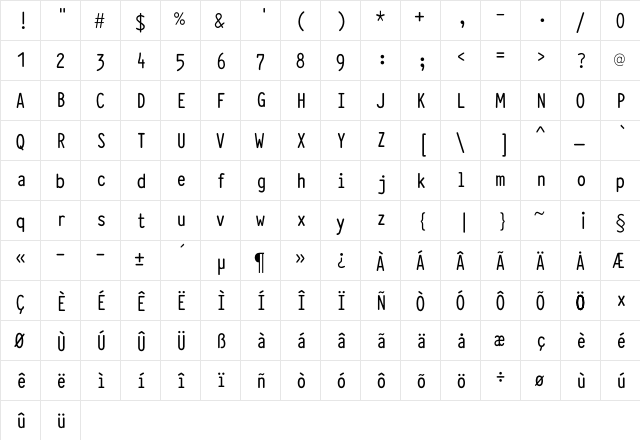
Typewriter_Condensed_Demi Regular
| Foundry | Volker Busse, Berlin |
| Designer | Volker Busse |
Design Context for Typewriter_Condensed_Demi Typeface
Typewriter_Condensed_Demi uses fixed-width spacing throughout, giving it the structured, systematic character associated with coding environments and technical documentation.
Pro Tip: Use Typewriter_Condensed_Demi with slightly increased line-height for extended reading — fixed-width spacing can feel dense in longer passages without extra breathing room.